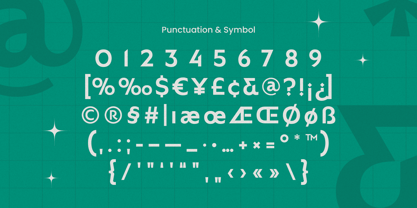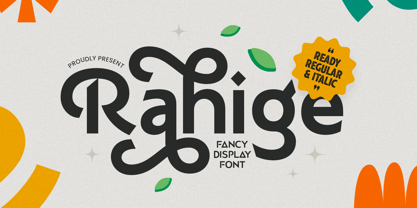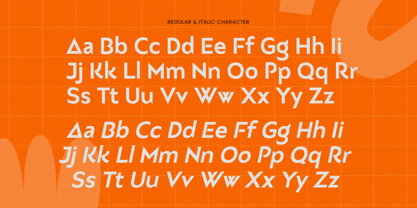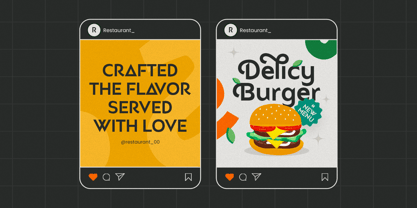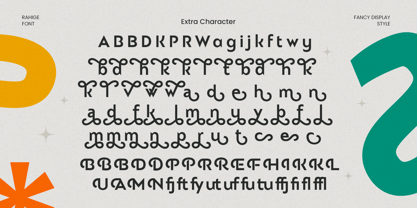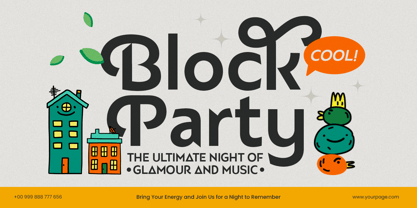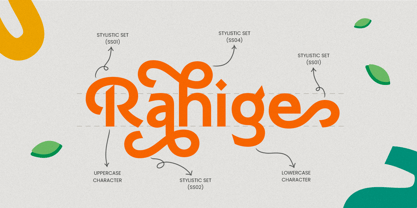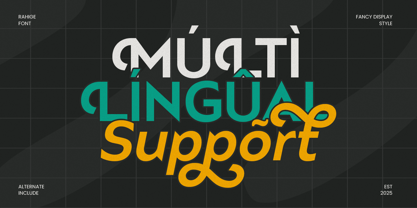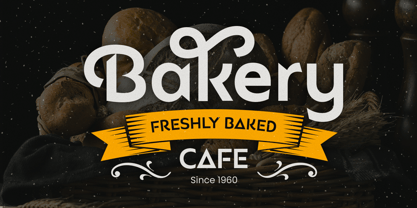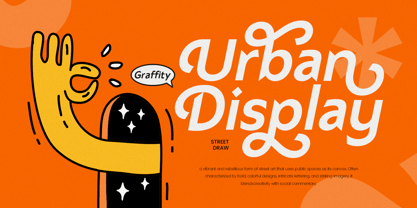
Rahige
von Sensatype Studio
Die Schriftfamilie Rahige wurde von Zamroni Hamzah entworfen und von Sensatype Studio veröffentlicht. Rahige enthält 2 Stile und Familienpaketoptionen. Mehr über diese Familie
Rahige is a fancy display fun font full of character and joy, designed to energize your creative projects. Its bold curves and playful shapes are perfect for eye-catching headlines, fun branding, and lively packaging designs. Crafted with a whimsical flair, Rahige brings personality to every letter. It’s a great fit for kids' products, creative campaigns, posters, and any design that calls for an expressive, bold typographic style. Add a splash of fun to your work with Rahige—a font that brings imagination and charm to life in both digital and print formats. Rahige – Fancy Display Fun Font Features Fun and expressive display style Available with Regular and Italic Style Playful ligature & alternate characters Punctuation, numbers, and symbols included Uppercase and lowercase letters OpenType features for custom styling Multilingual support for Afrikaans, Albanian, Asu, Basque, Bemba, Bena, Breton, Chiga, Cornish, Dutch, English, Estonian, Filipino, Finnish, Friulian, Galician, German, Gusii, Indonesian, Irish, Italian, Kabuverdianu, Kalenjin, Kinyarwanda, Luo, Luxembourgish, Luyia, Machame, Makhuwa-Meetto, Makonde, Malagasy, Manx, Morisyen, North Ndebele, Nyankole, Oromo, Portuguese, Quechua, Romansh, Rombo, Rundi, Rwa, Samburu, Sango, Sangu, Scottish Gaelic, Sena, Shambala, Shona, Soga, Somali, Spanish, Swahili, Swedish, Swiss, and more. Bring your ideas to life with Rahige – a font that adds fun, flair, and fancy to every project! 🎨🎉
Designer: Zamroni Hamzah
Foundry: Sensatype Studio